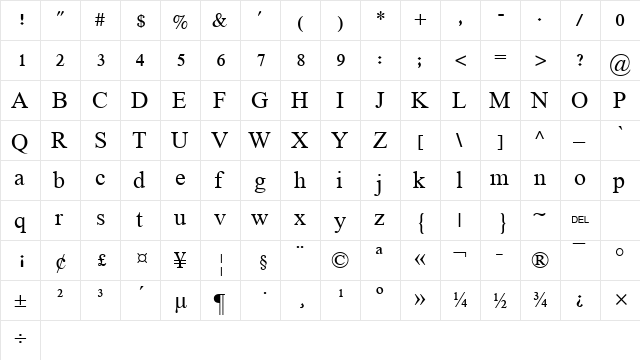
FrankRuehl Regular
Design Context for FrankRuehl Typeface
FrankRuehl offers clean, dependable letterforms without strong stylistic allegiance, making it a practical choice for designers who need flexibility.